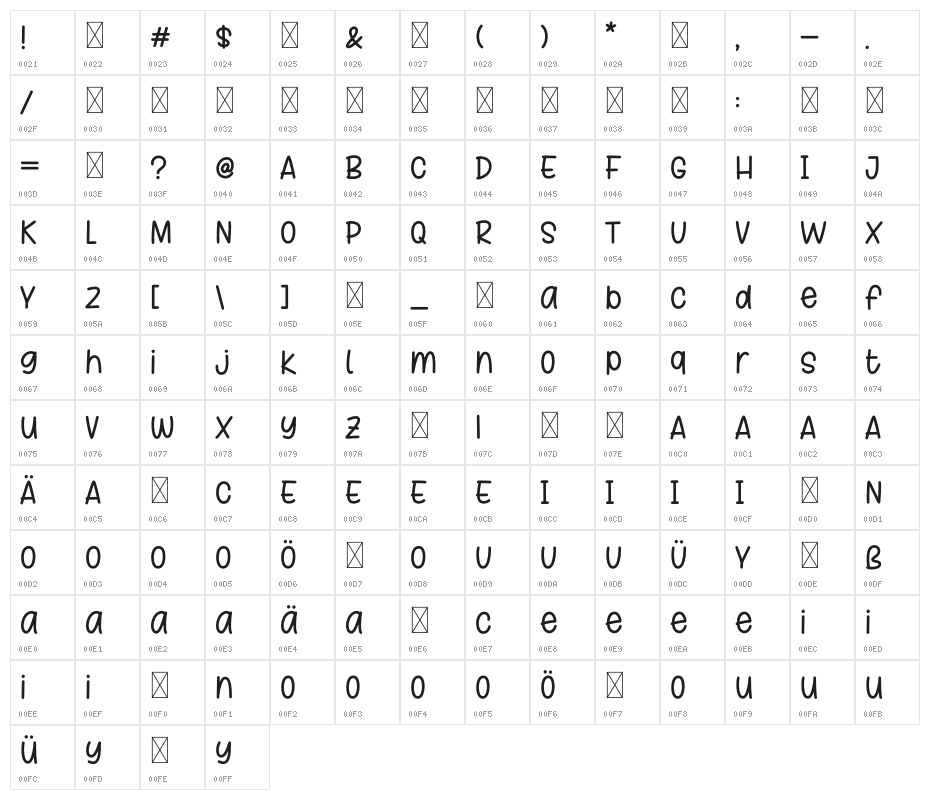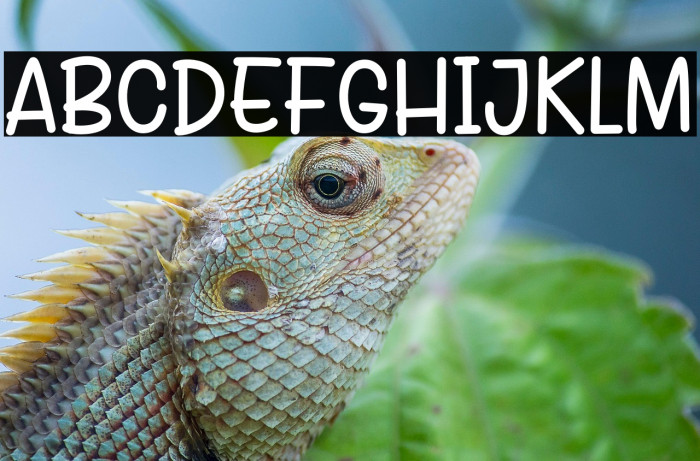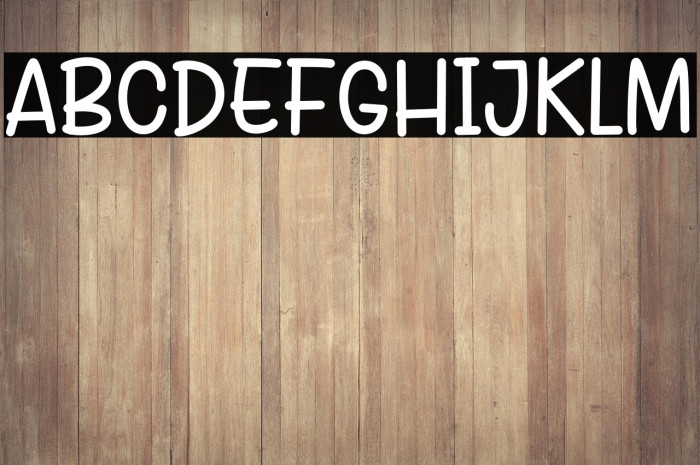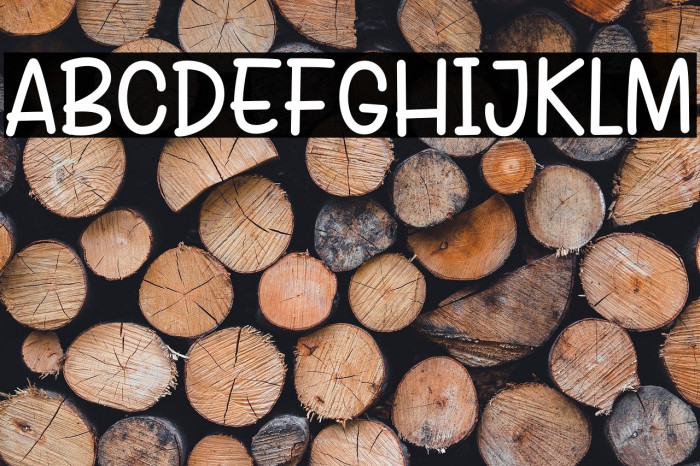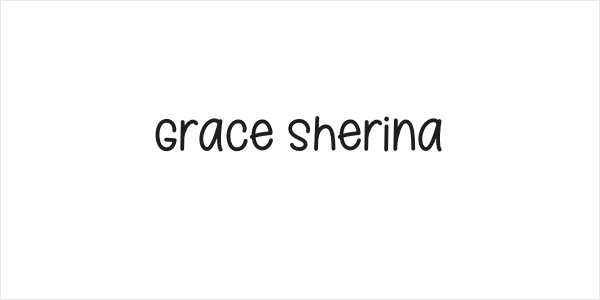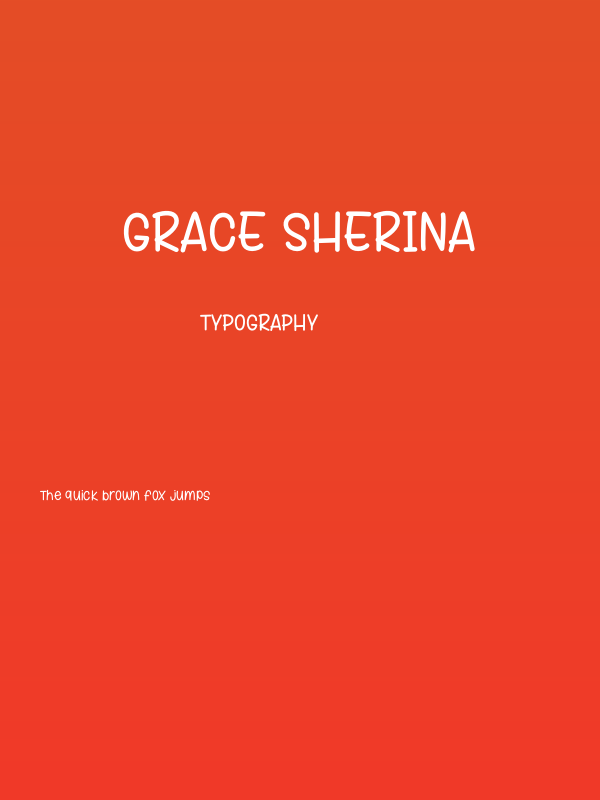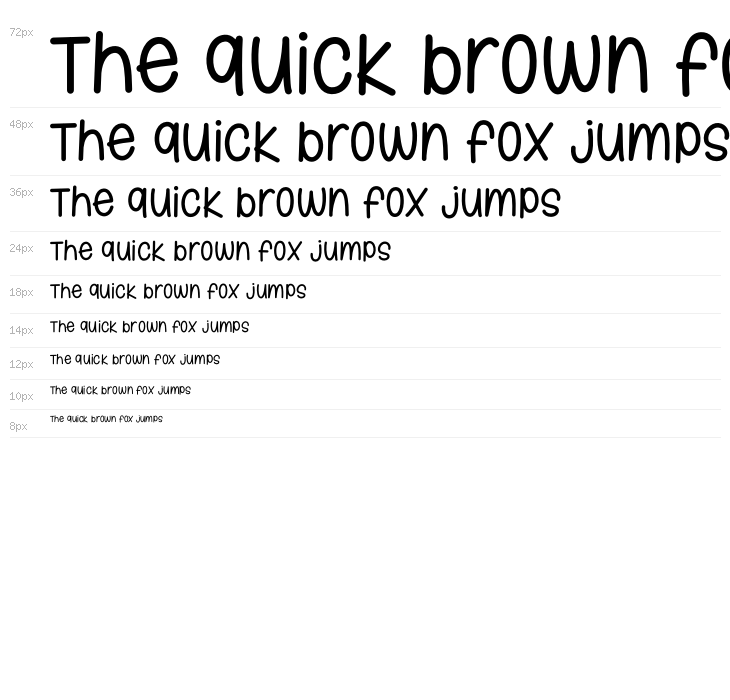
Grace Sherina Font
Grace Sherina Description
This playful and casual font features a handwritten style with smooth, rounded edges and a friendly appearance. The uppercase and lowercase letters maintain a consistent flow, with slightly varying stroke widths that add a touch of personality. The characters are well-spaced, ensuring readability while maintaining a whimsical charm. The font's informal style makes it suitable for projects that require a personal touch or a relaxed vibe. Its legibility and unique character make it versatile for various creative applications.
| Proposed Projects | Ideal for greeting cards, children's books, casual branding, and social media graphics. |